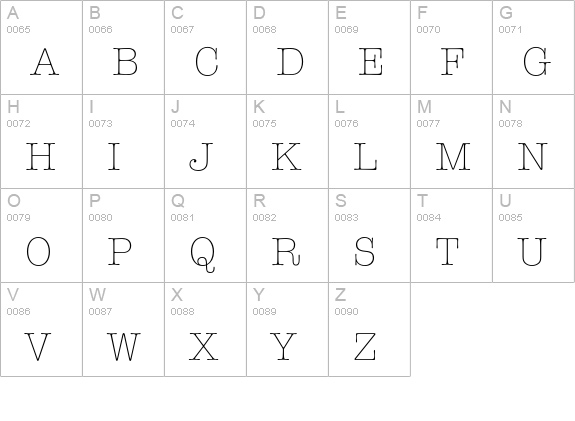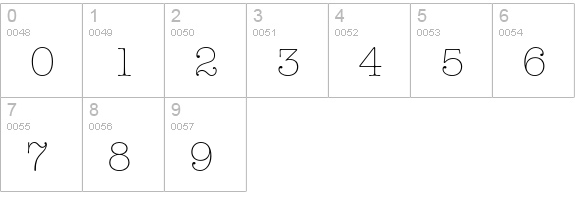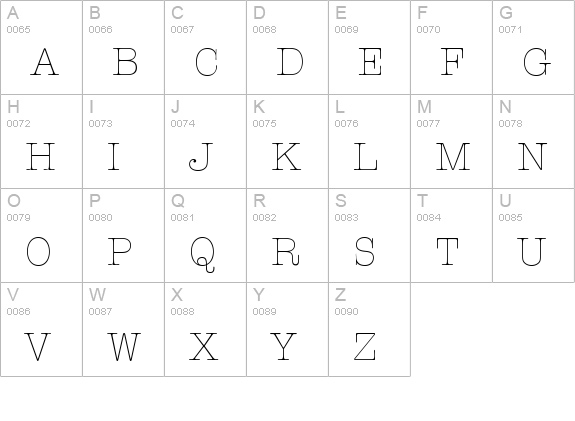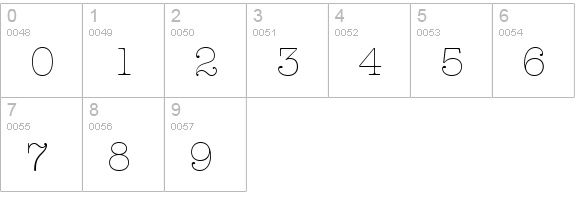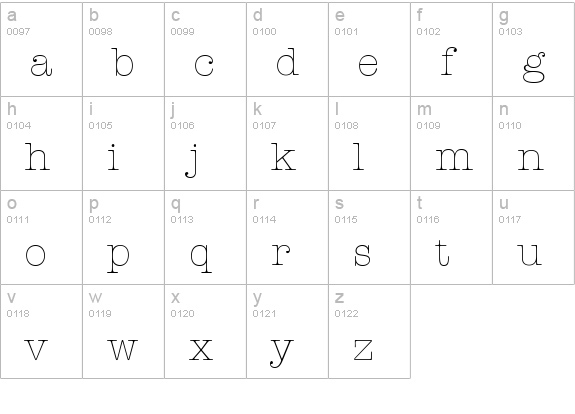
AmTypewriterEF-Light is a refined, elegant variant in the AmTypewriterEF typeface family \xE2\x80\x94 well suited to elegant body text, refined sub-headings, and luxury branding.
AmTypewriterEF-Light font is a sleek and modern typeface that combines the timeless charm of a typewriter with a contemporary twist. Its light weight brings a sense of elegance and sophistication to any design project, making it perfect for titles, headlines, and body text alike. The clean lines and subtle variations in stroke width give this font a unique character that stands out while maintaining a classic feel. What makes AmTypewriterEF-Light font even more appealing is that it is available for free download at FontsMarket.com. This means that you can easily access this stylish and versatile font without any cost, making it a valuable addition to your font collection. Whether you're working on a personal project or a professional design, AmTypewriterEF-Light font has the versatility and style to elevate your work to the next level. Download it today and see the difference it can make in your designs.